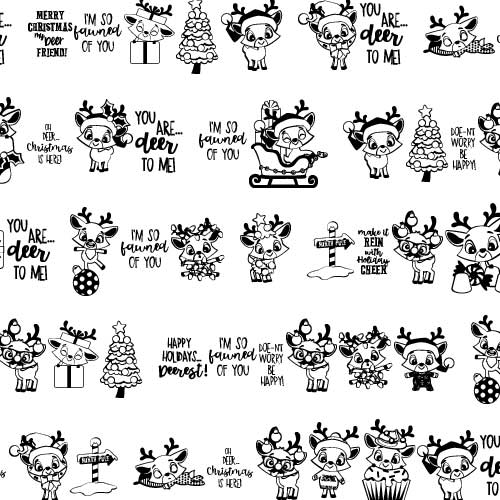
DB Deer-ly - DB
This adorable doodlebat font features 26 Deer ready for Christmas. Perfect for cards, crafts, gifts, classrooms, planner stickers, scrap book pages and more!